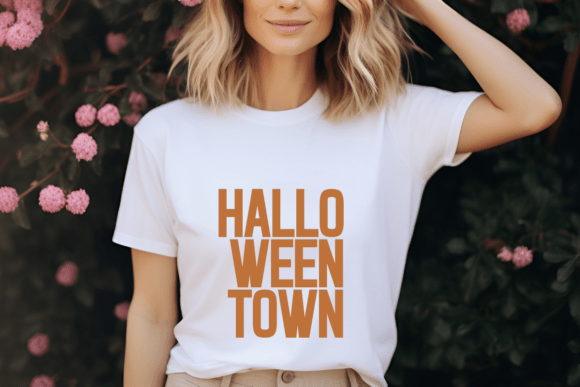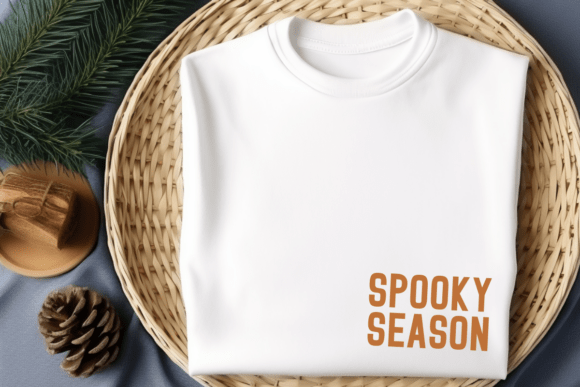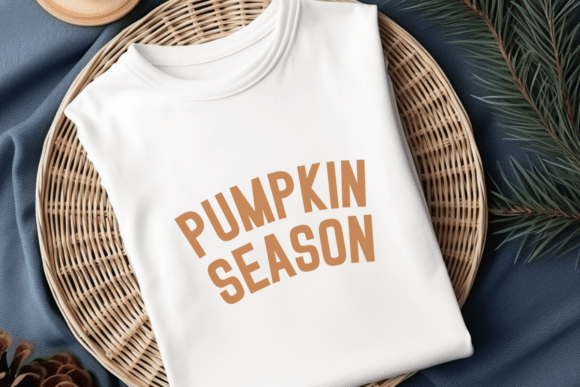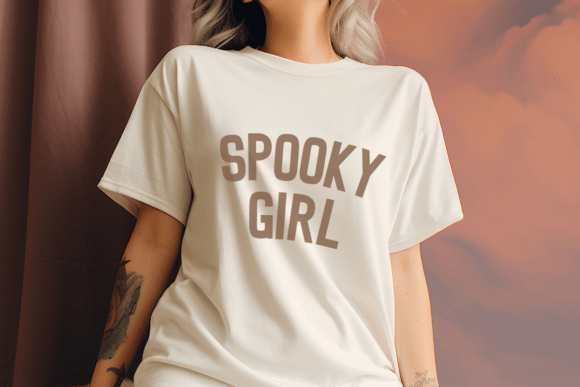
Introduction to Hightown Font
Hightown is a bold and modern condensed sans serif font that commands attention with its tall letterforms and strong presence.
Perfectly crafted for impactful designs, this font is ideal for print-on-demand projects like t-shirts, posters, mugs, and tote bags, as well as film titles, branding, logos, and stylish packaging Its condensed shape makes it stand out in headlines and gives your work a sleek, professional edge.
Key Features of Hightown Font